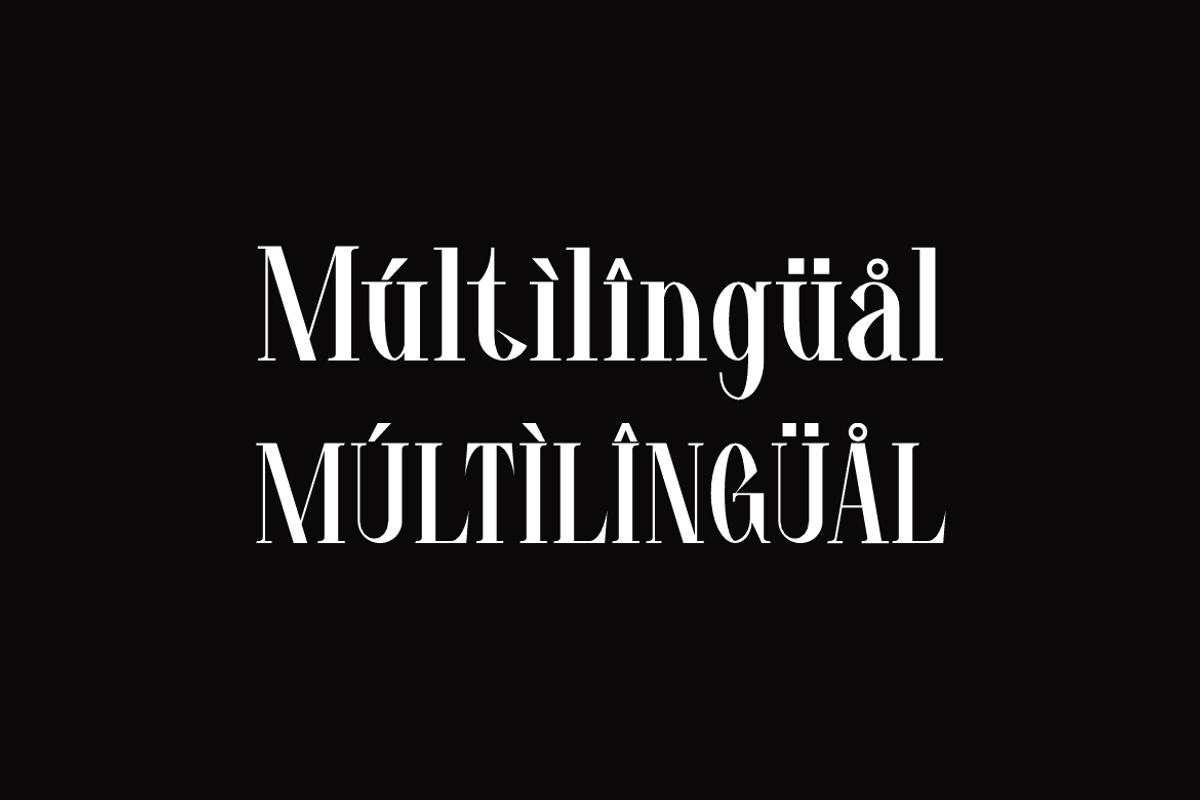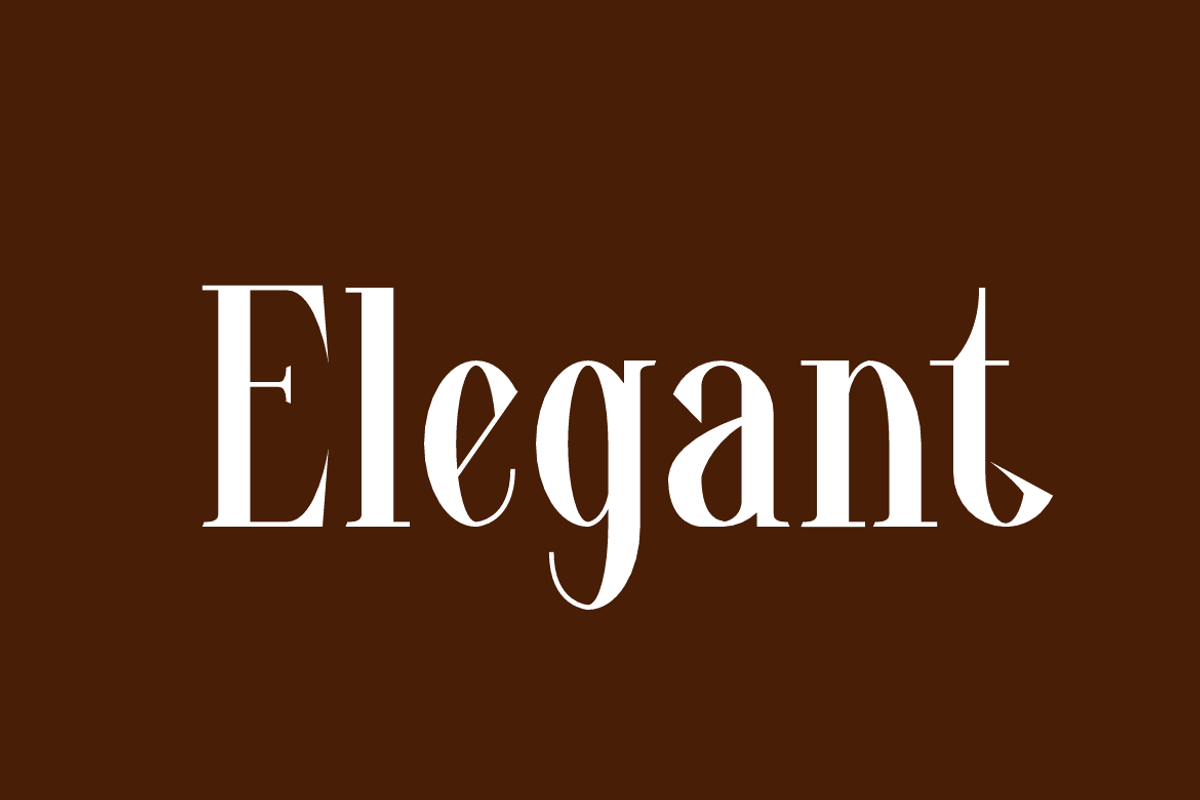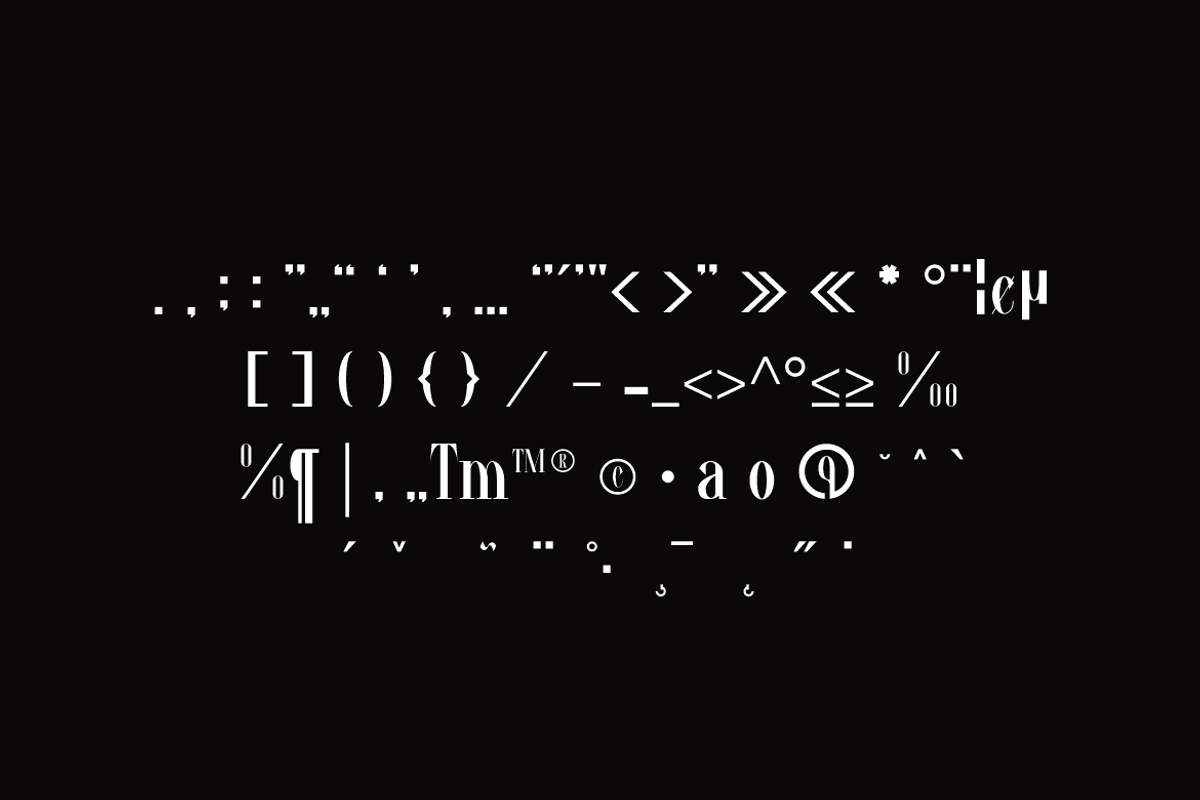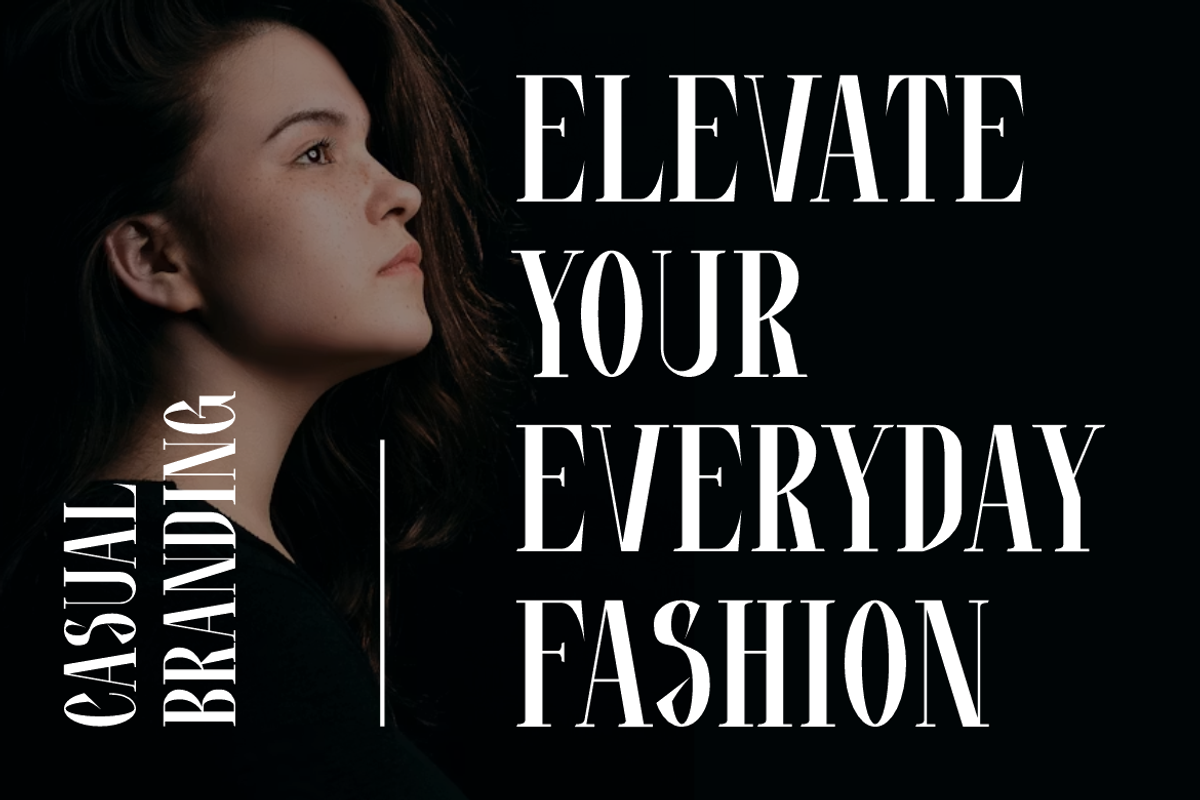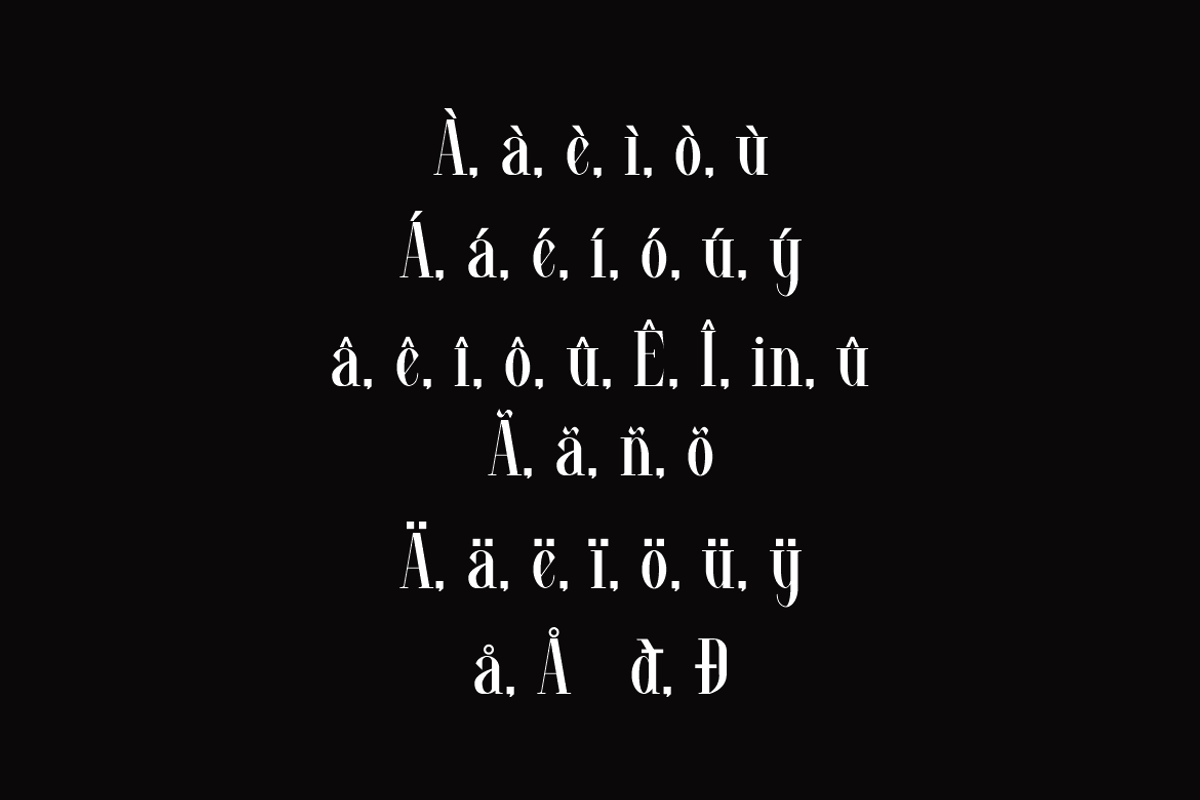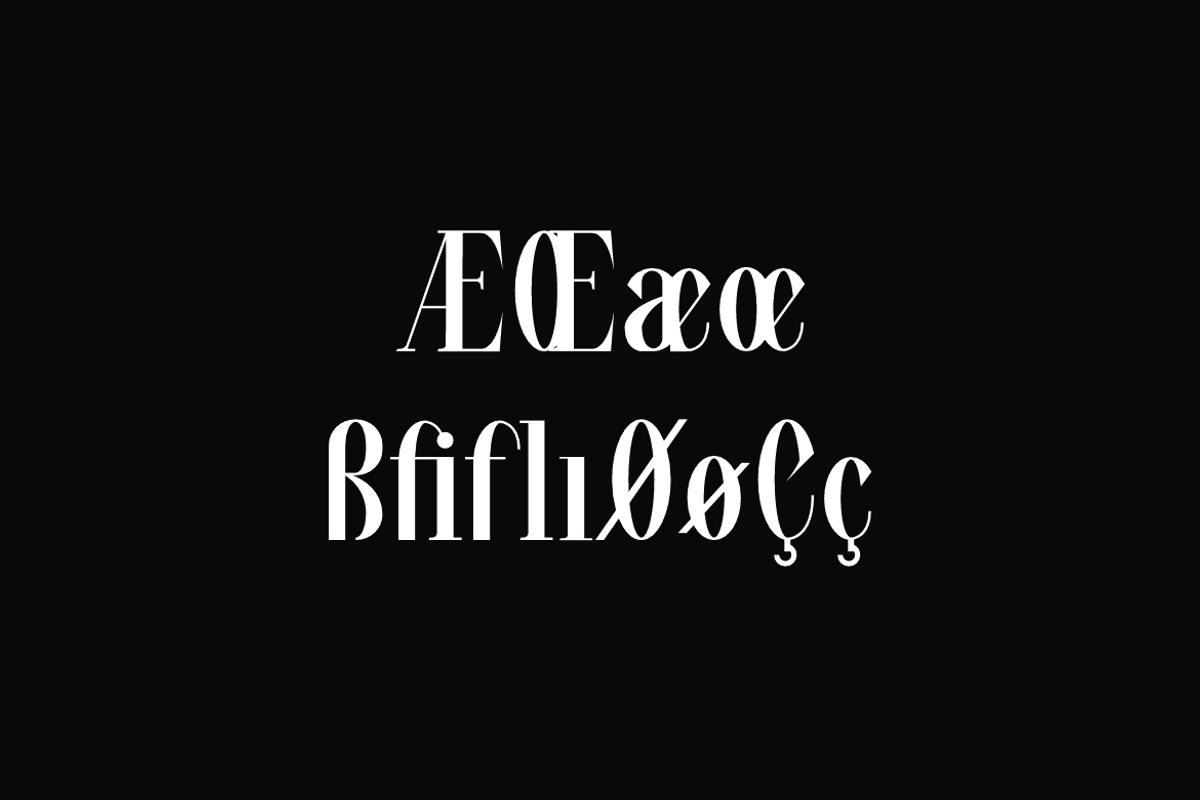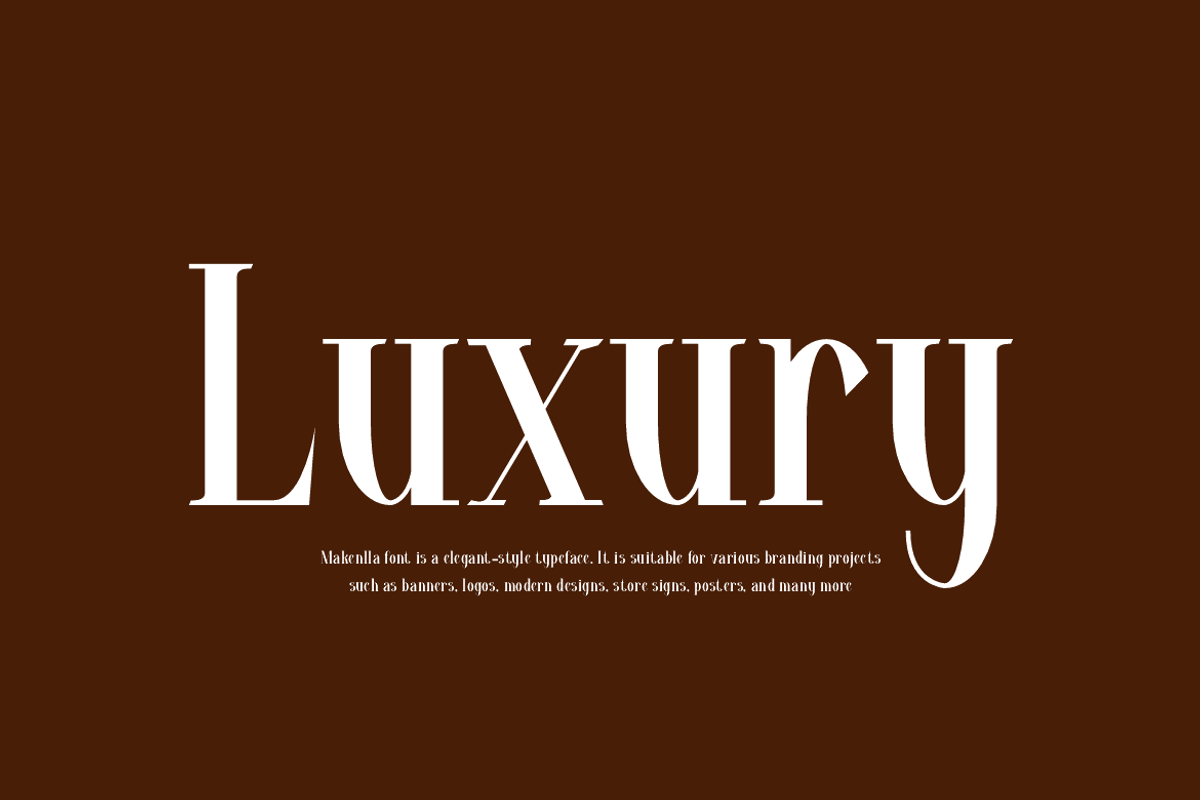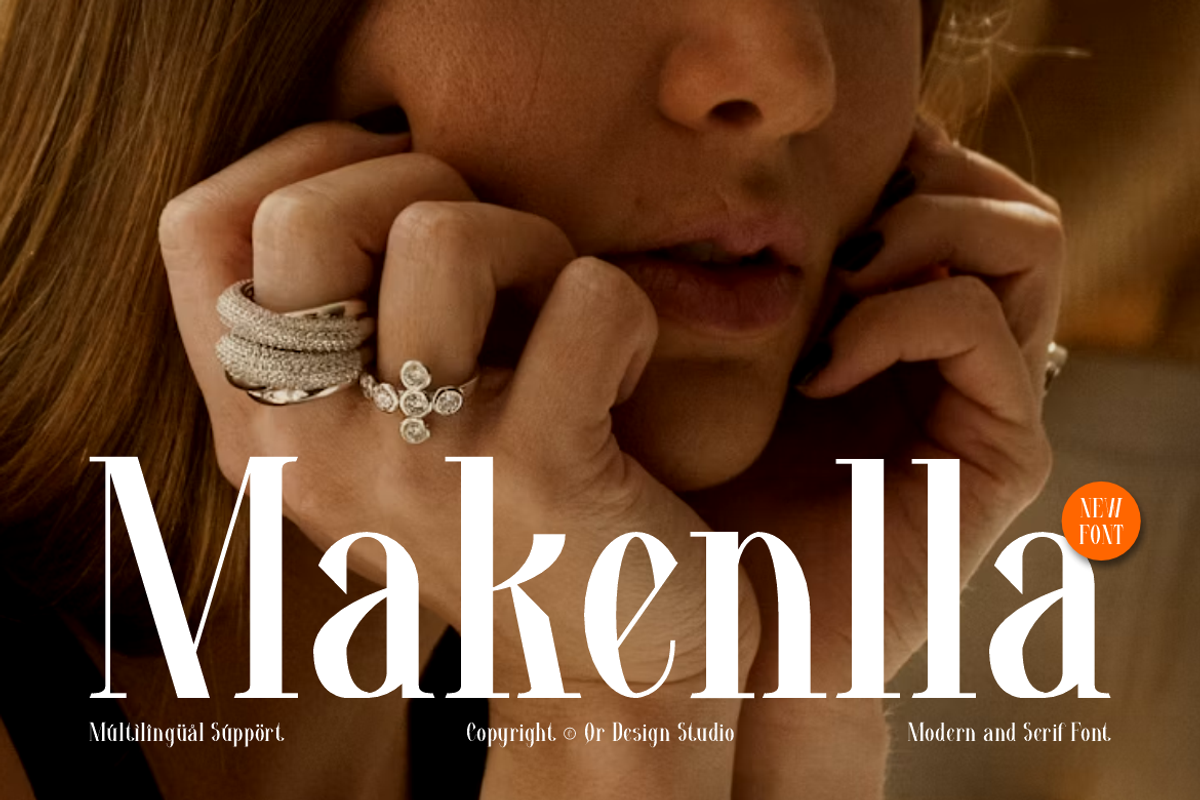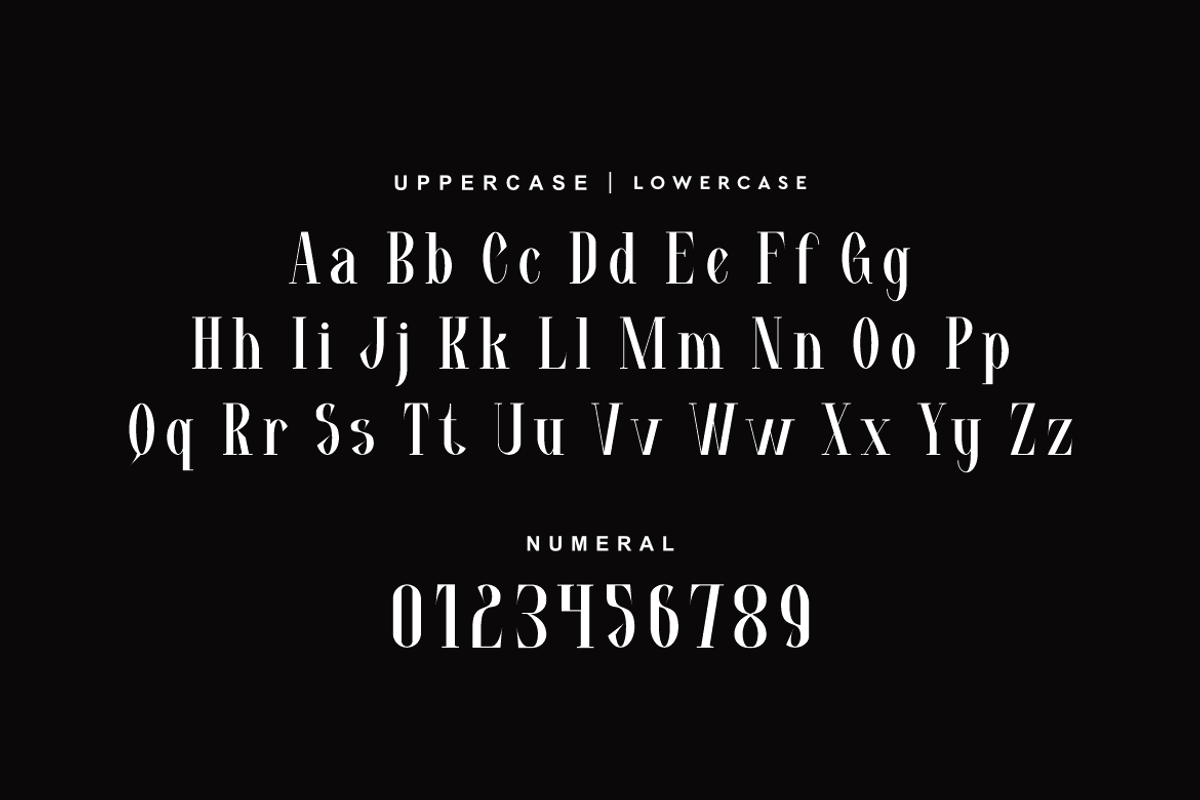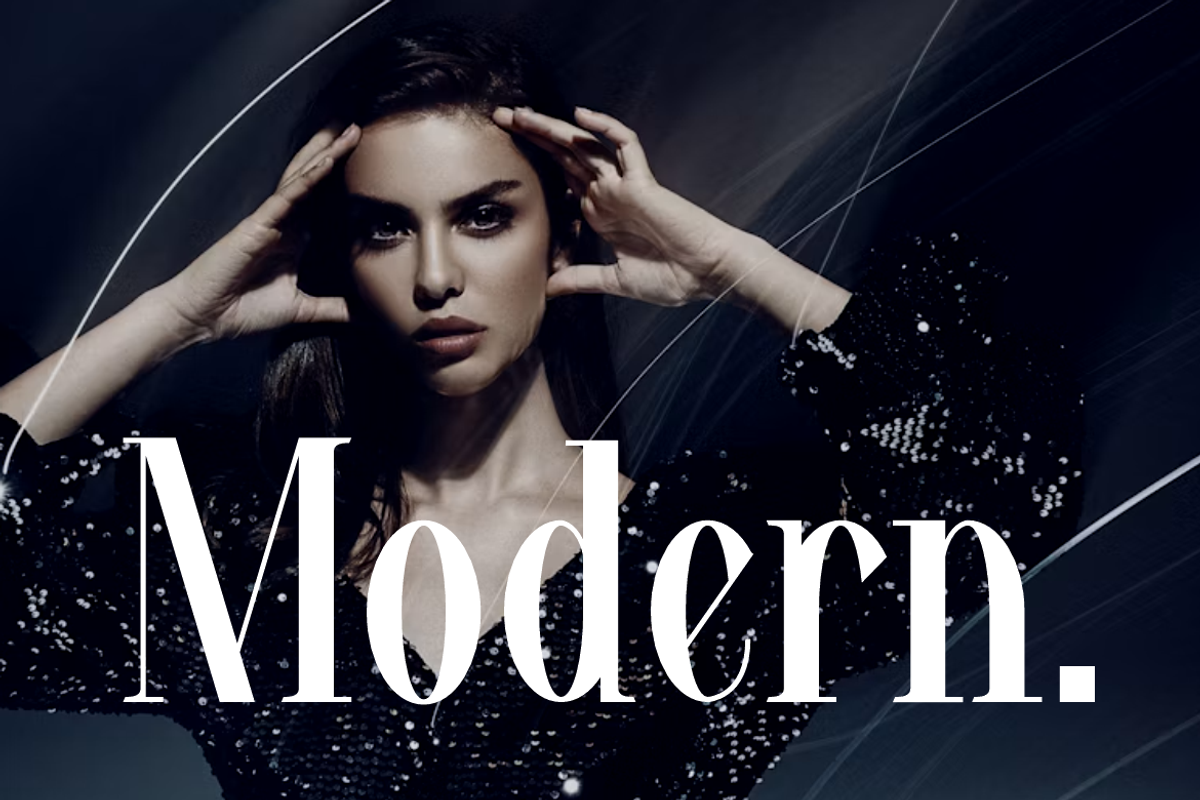
Makenlla - Elegant Fashion Font
Makenlla Font is a serif and authentic display typeface.
It’s perfect for various branding projects such as logos, modern designs,
and more. This font stands out beautifully in a wide range of contexts.